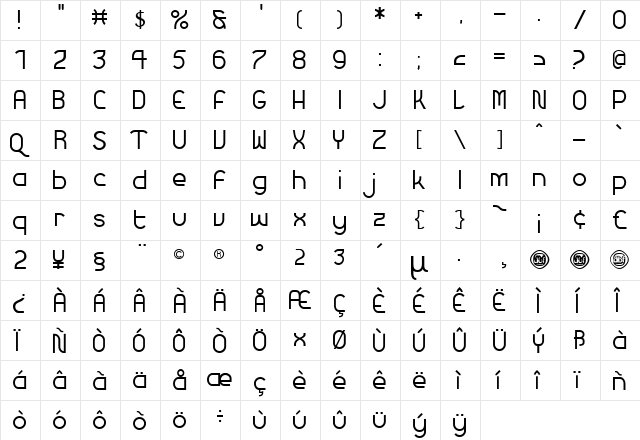
Futurex Simplex Regular
| Designer | Steve Graham |
Design Context for Futurex Simplex Typeface
Futurex Simplex has a distinctly futuristic character, with geometric precision and clean angles that feel at home in technology, gaming, and sci-fi contexts.